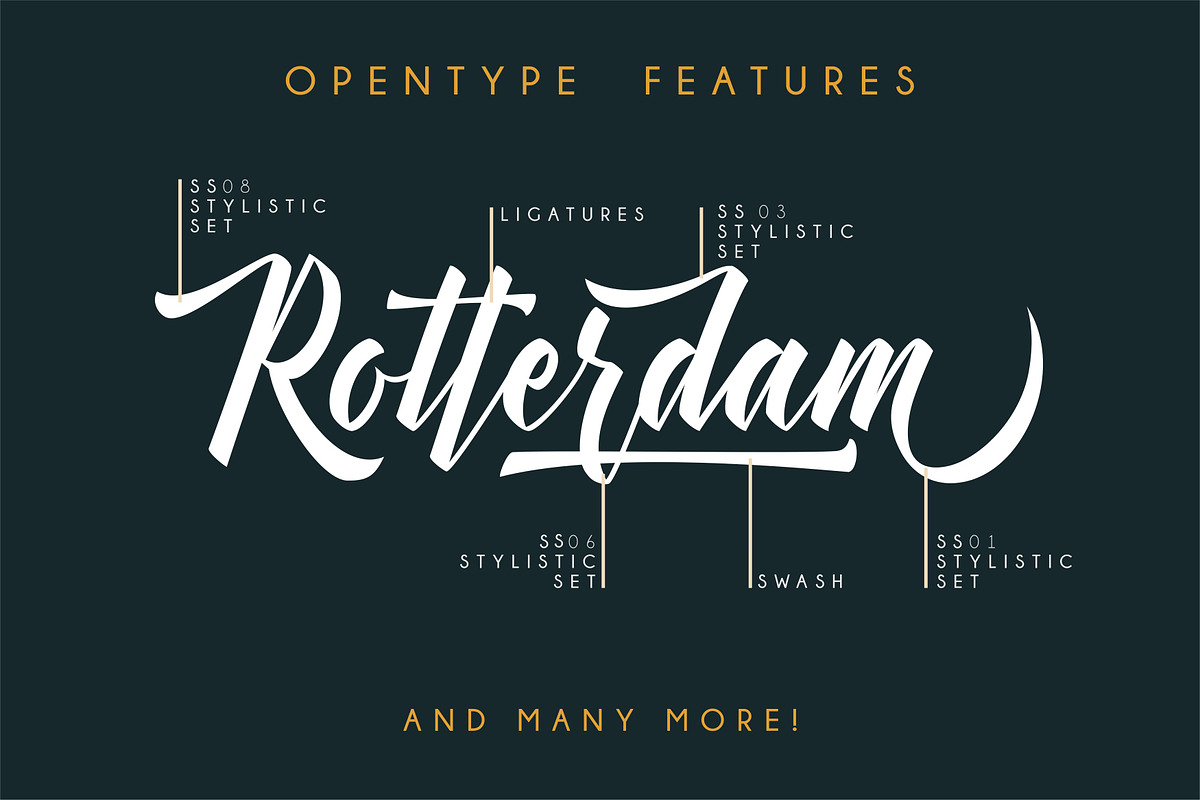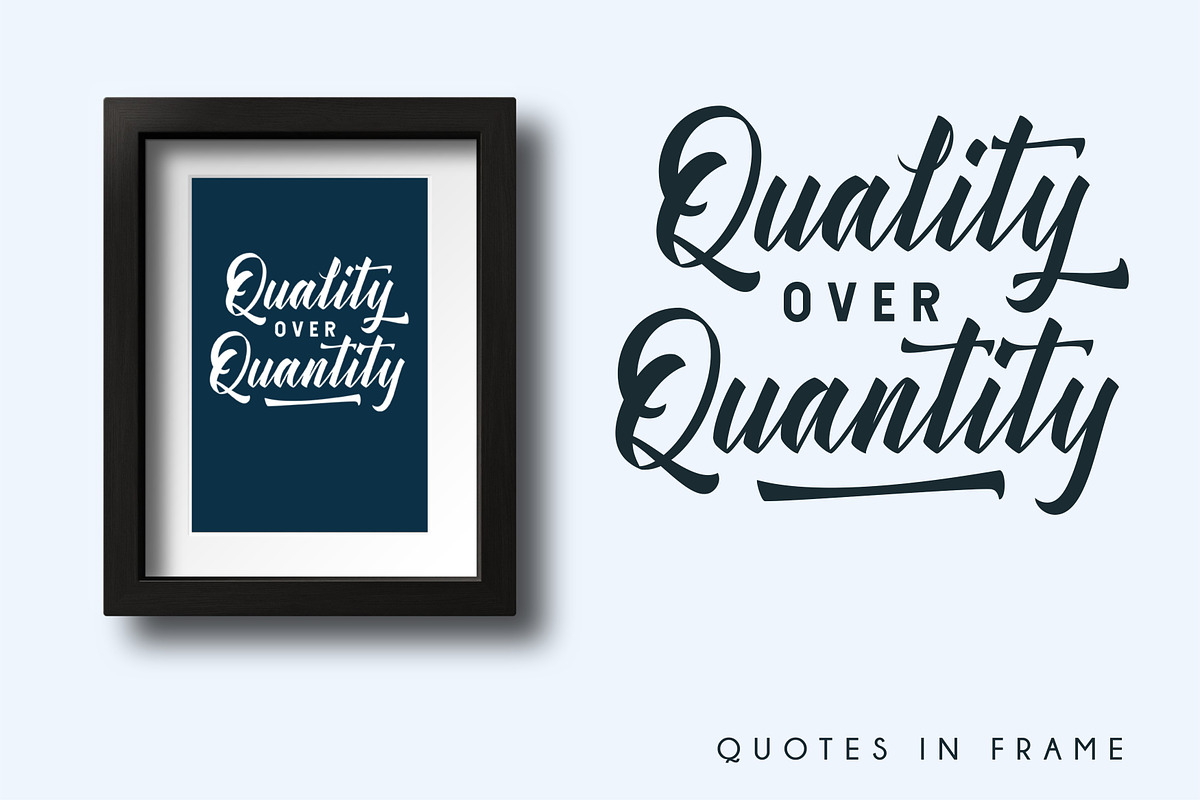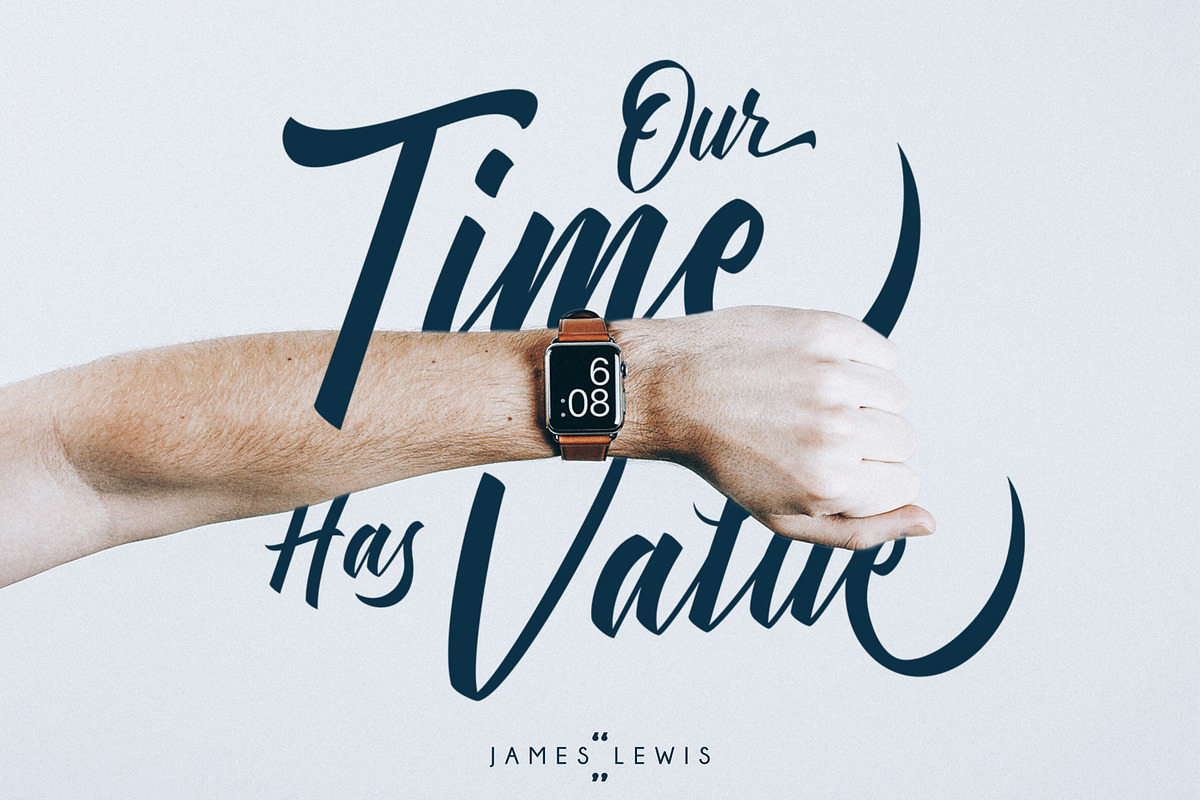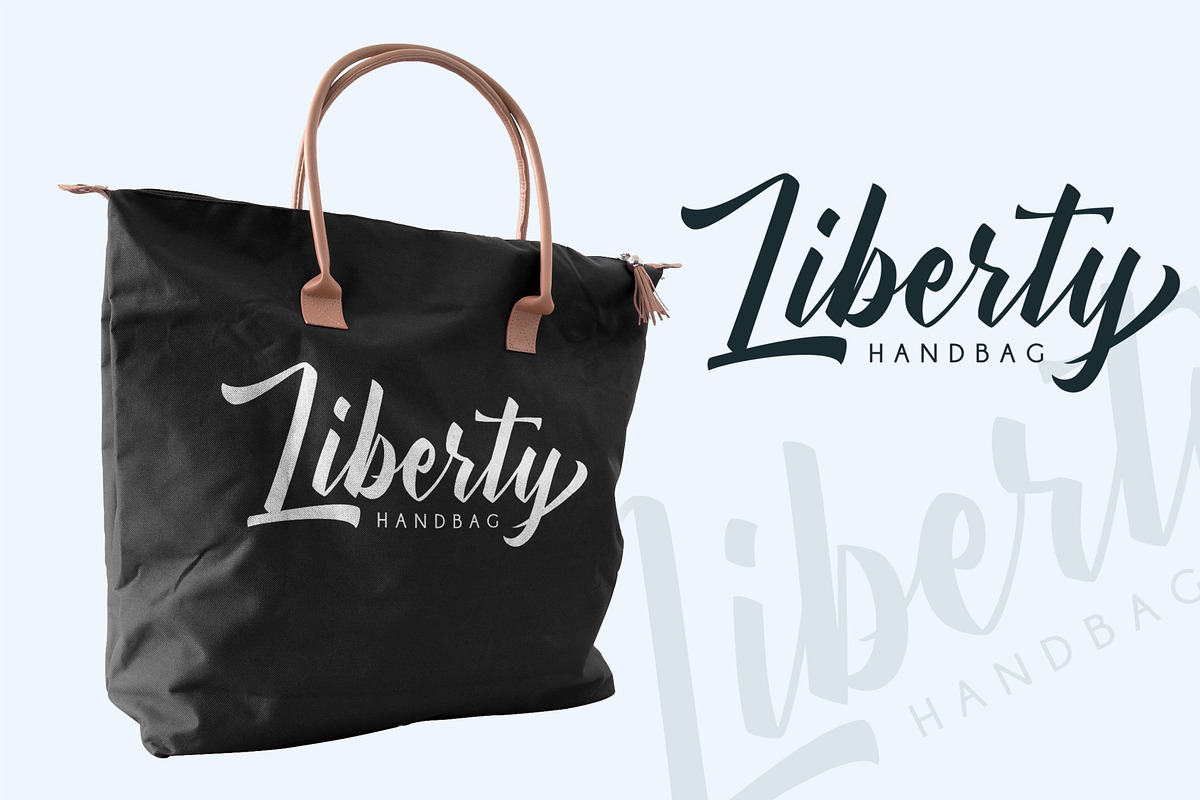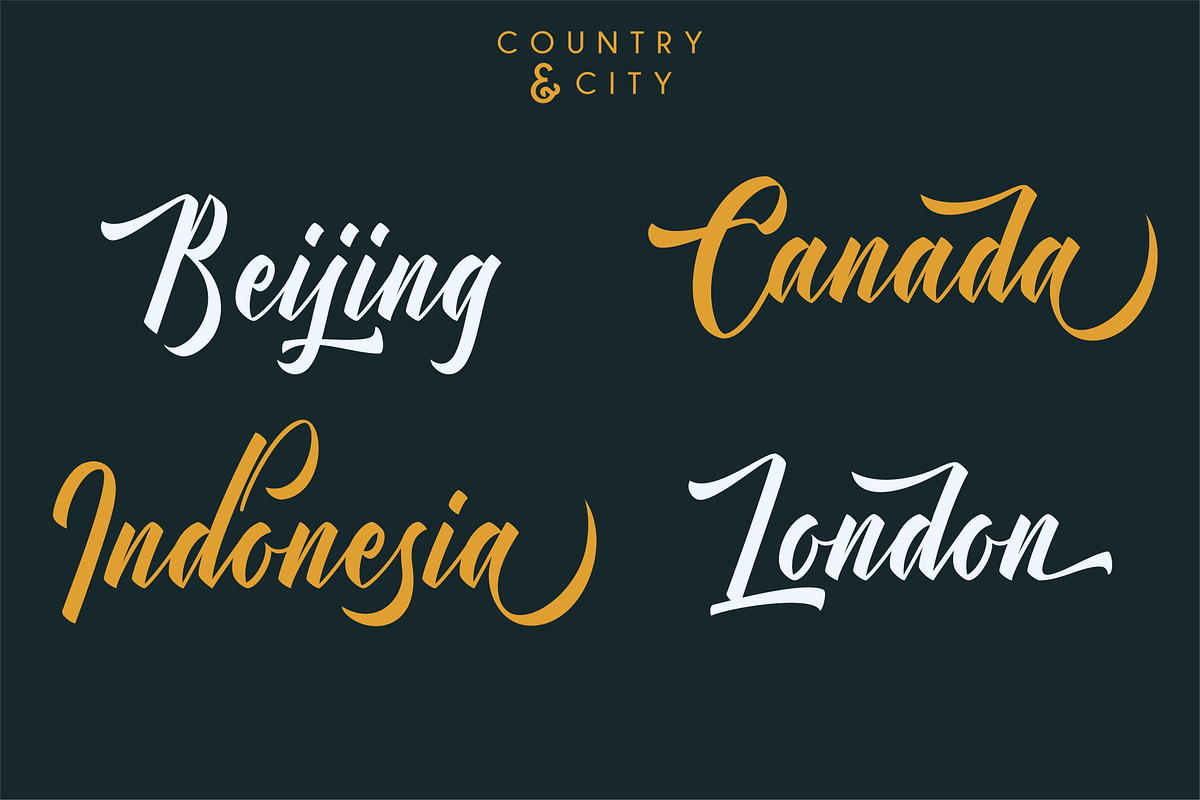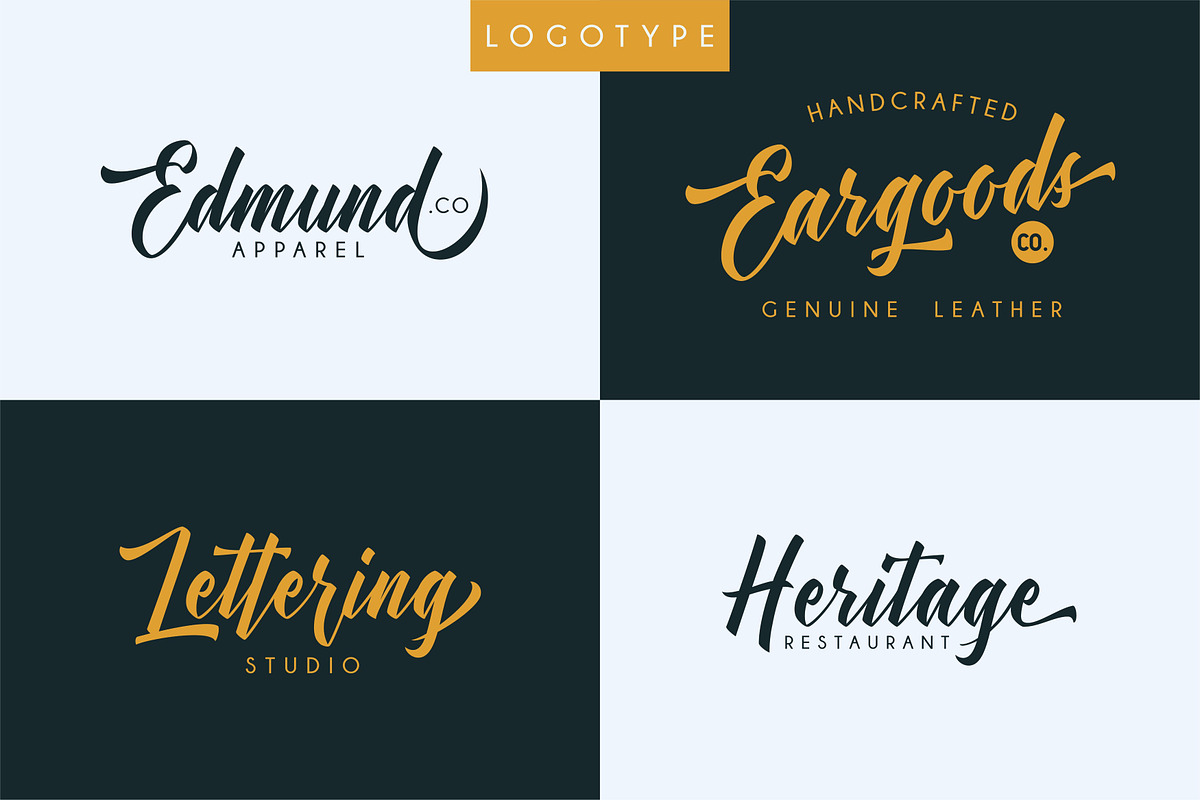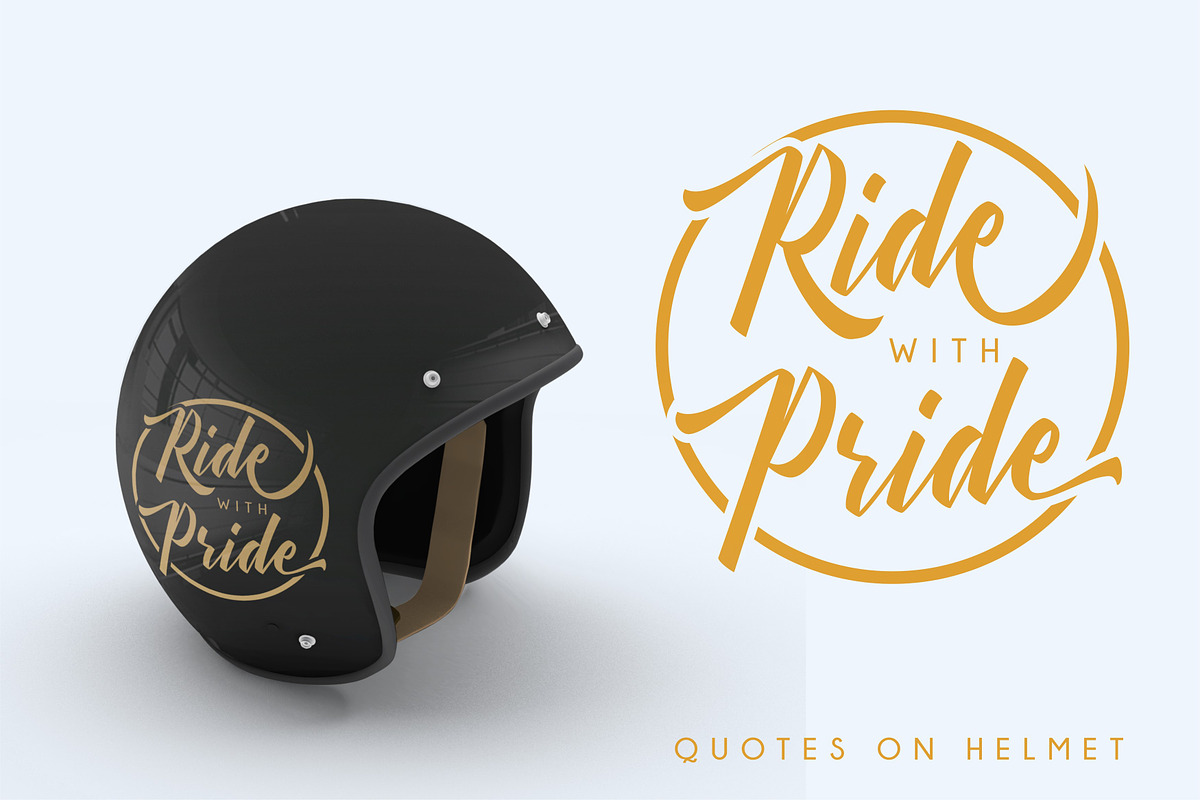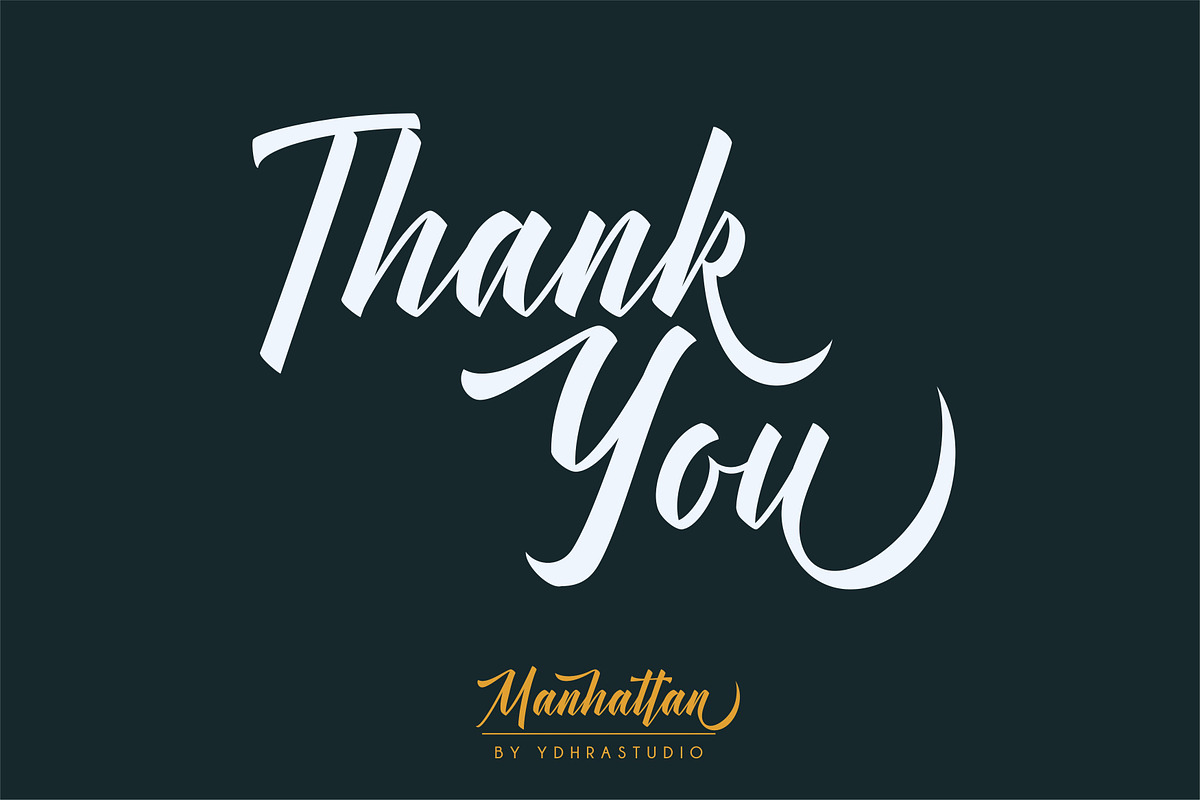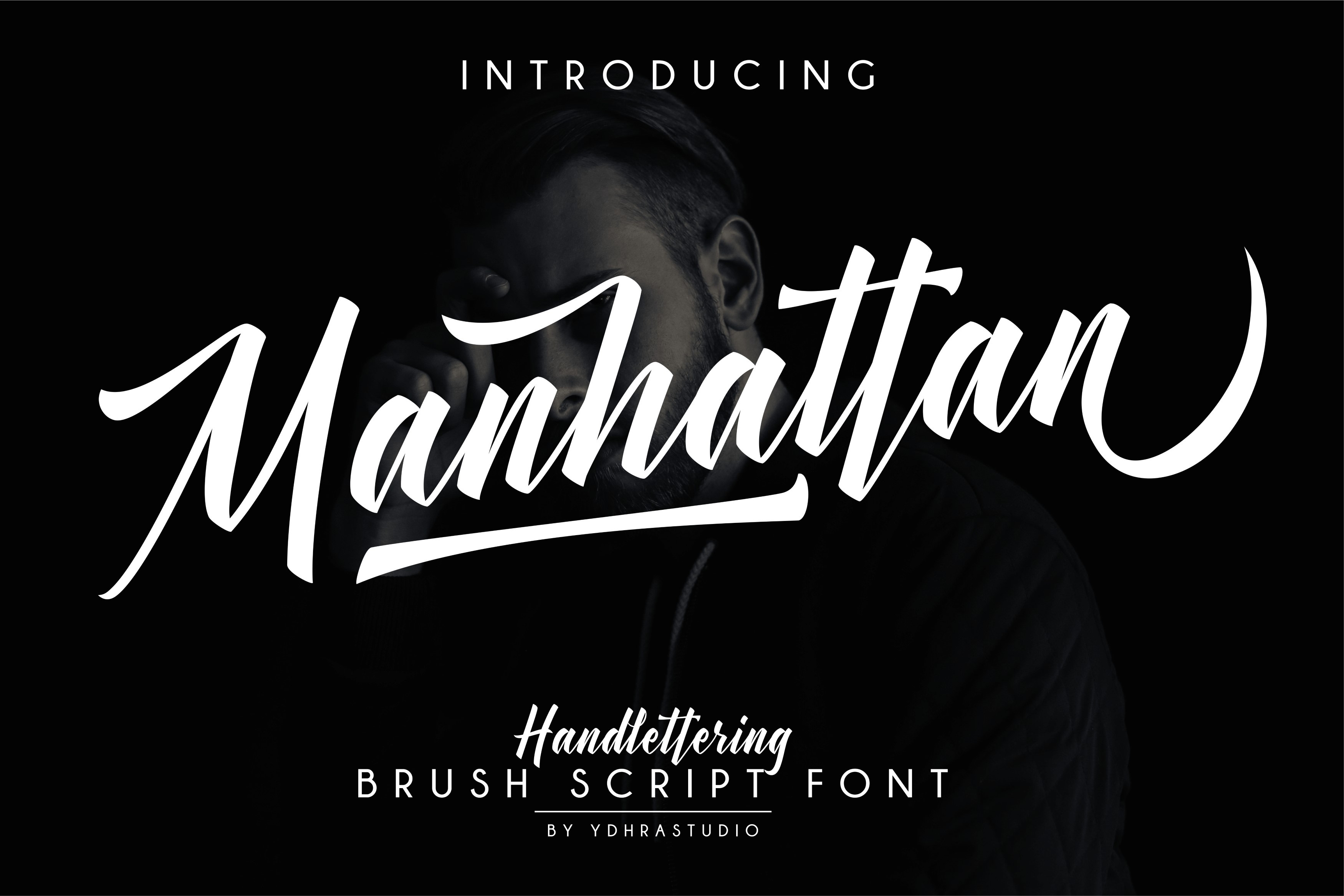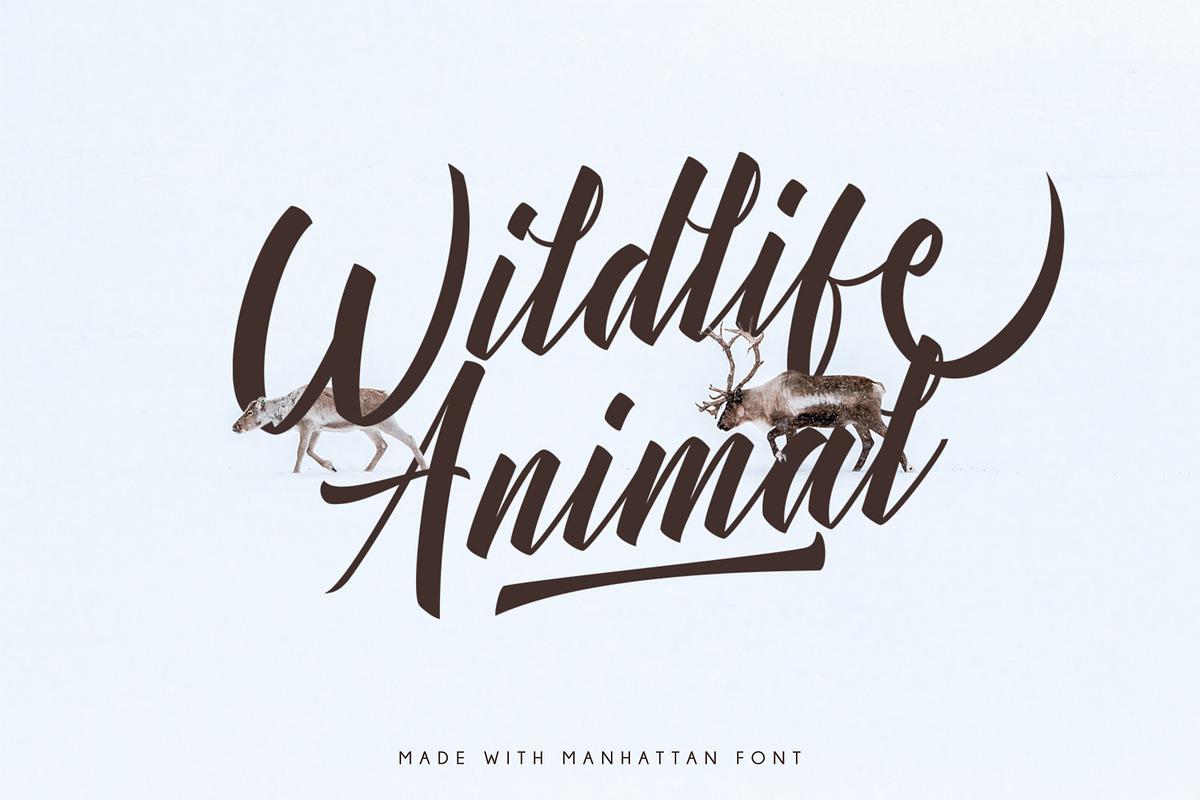
Manhattan Font + SWASH
Hello good Fellas! We introduce our new product called Manhattan Font. The Manhattan Font is a Modern Handlettering Brush Script font. We give you bonus a swash to make your design look more awesome with Manhattan Font. Manhattan Font has a Multilingual Support.
Manhattan Font is great for Logotype, Branding Design, Logo Design, Digital Lettering Arts, T-Shirt / Apparel, Poster, Magazine, Signs, Advertising Design, and any hand-lettered needs.
Manhattan Font Features :
- Upper and Lowercase Standard Characters, Punctuation, Numerals.
- Opentype Features such as Standard Ligature and Stylistic Set (SS01 - SS08).
- Includes a range of multilingual characters.
Mix and match the alternate characters to add an attractive message to your design.